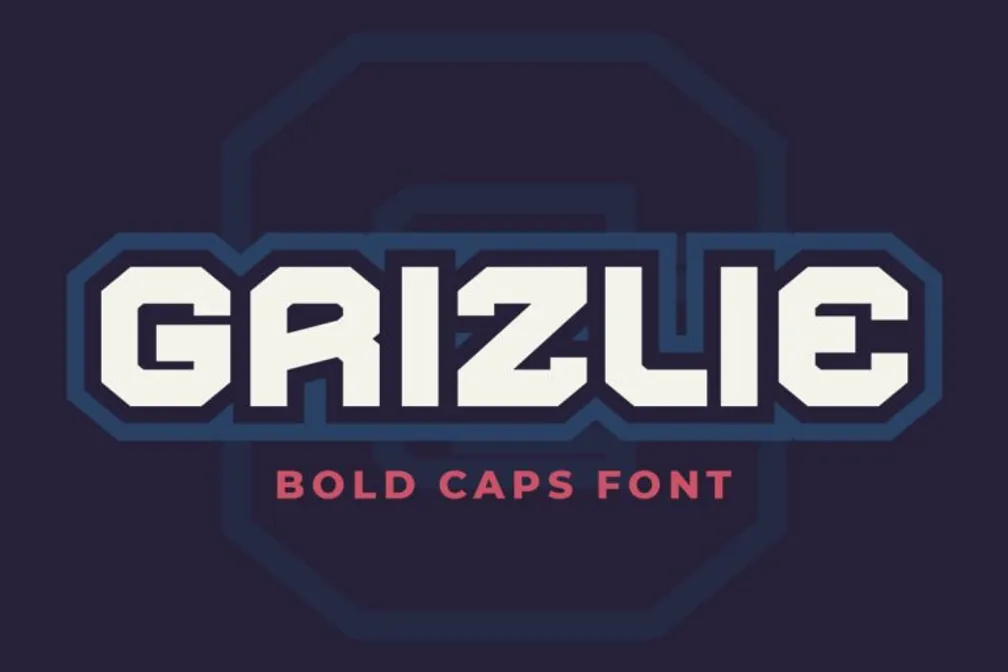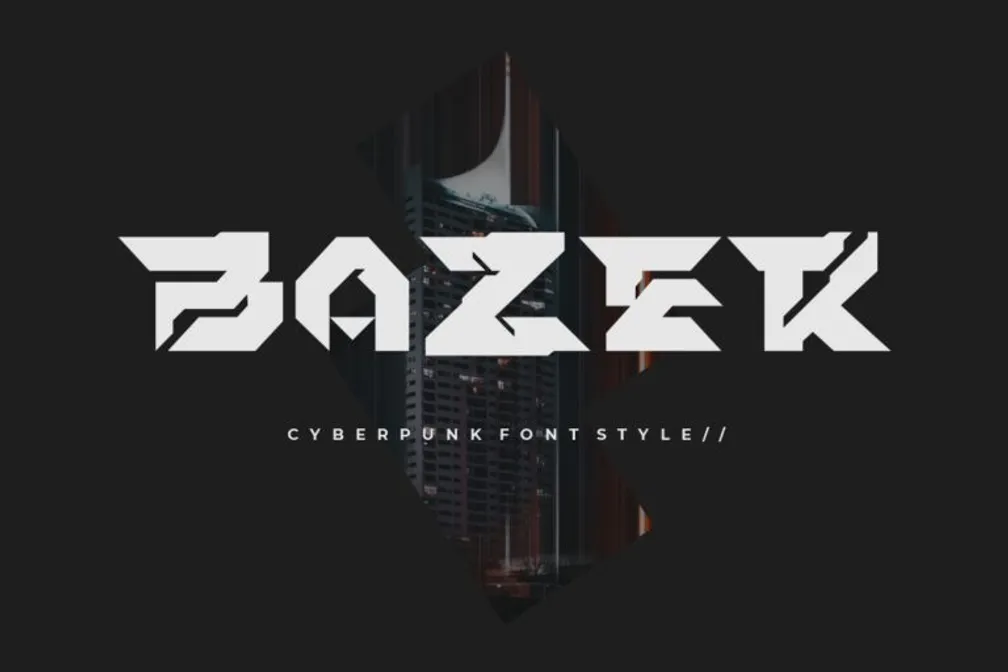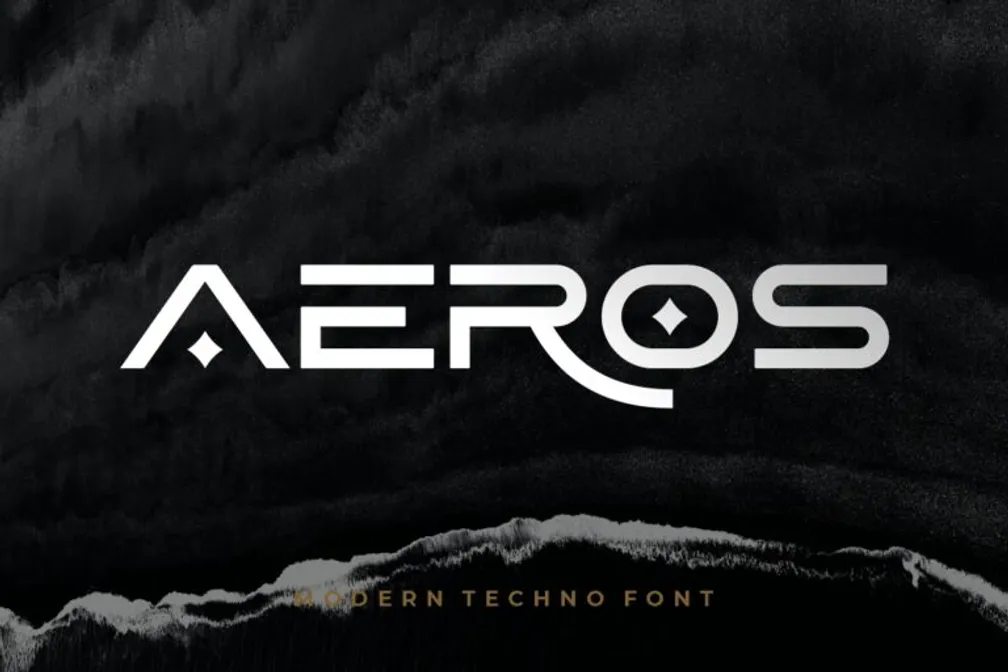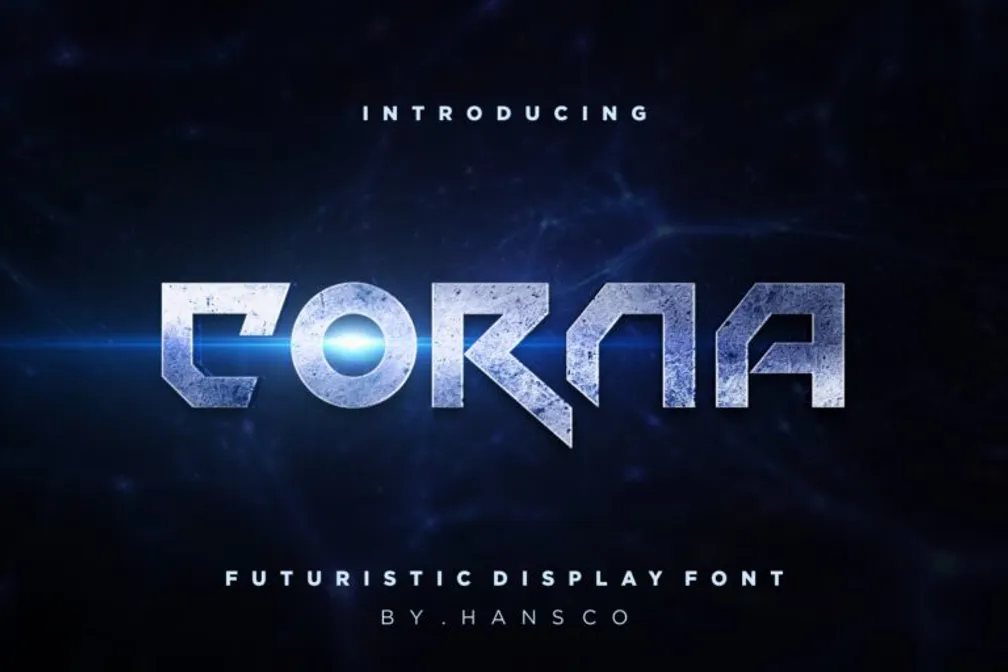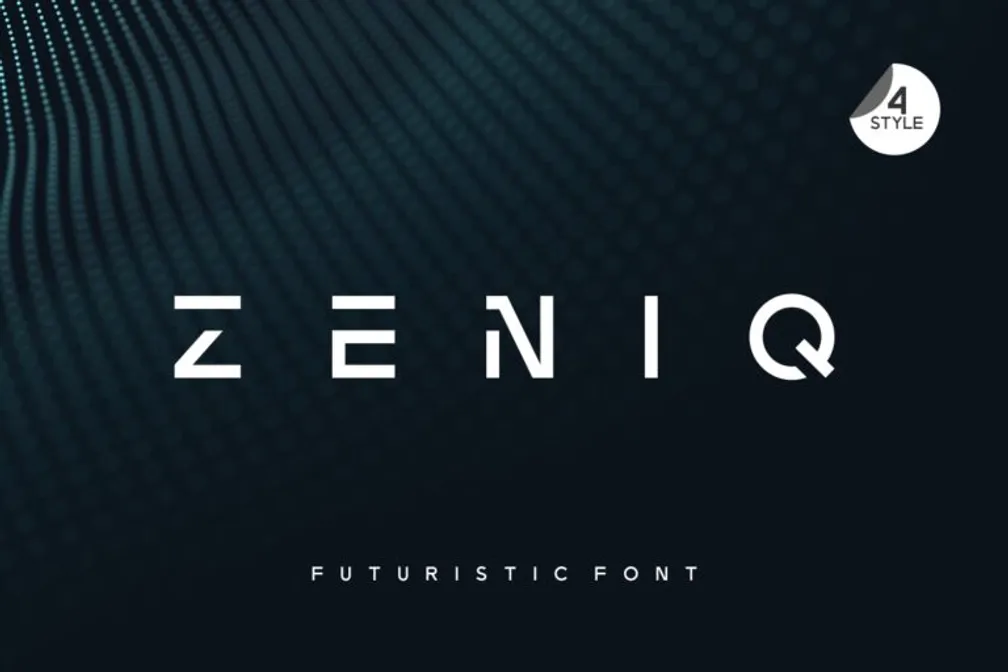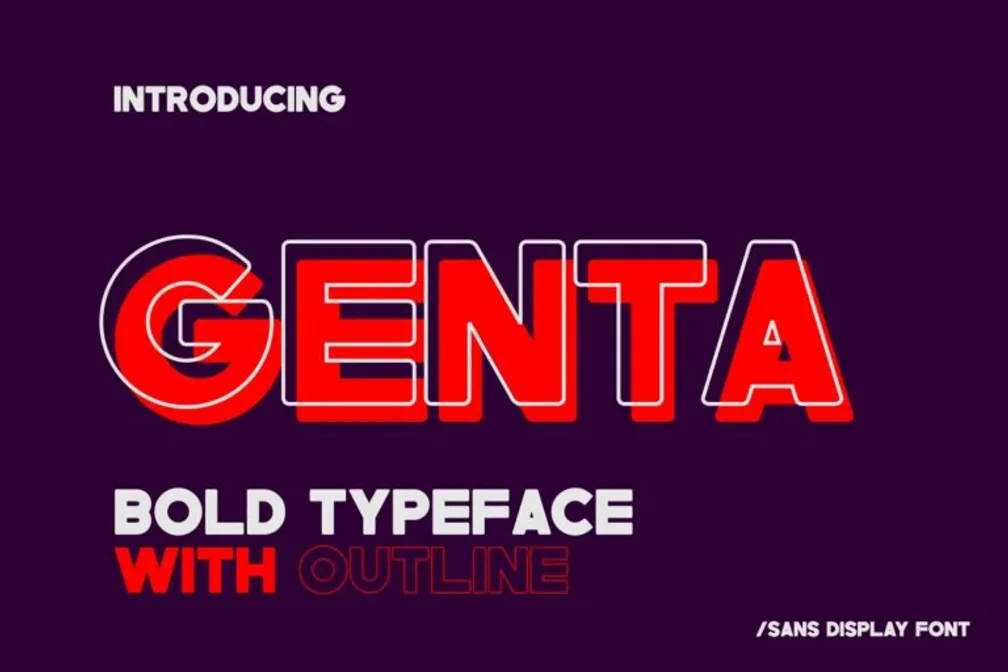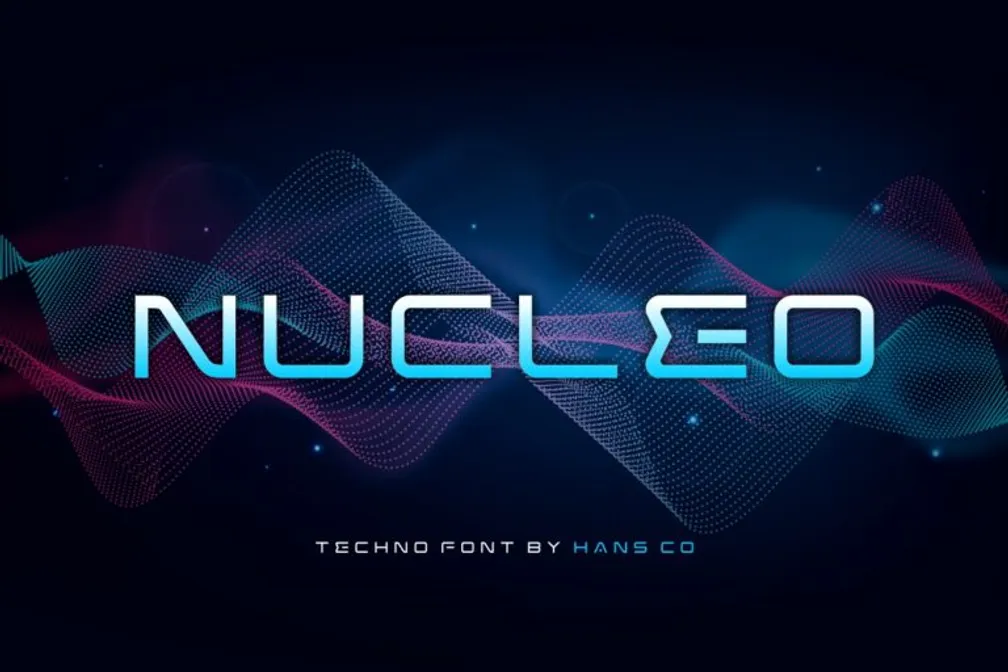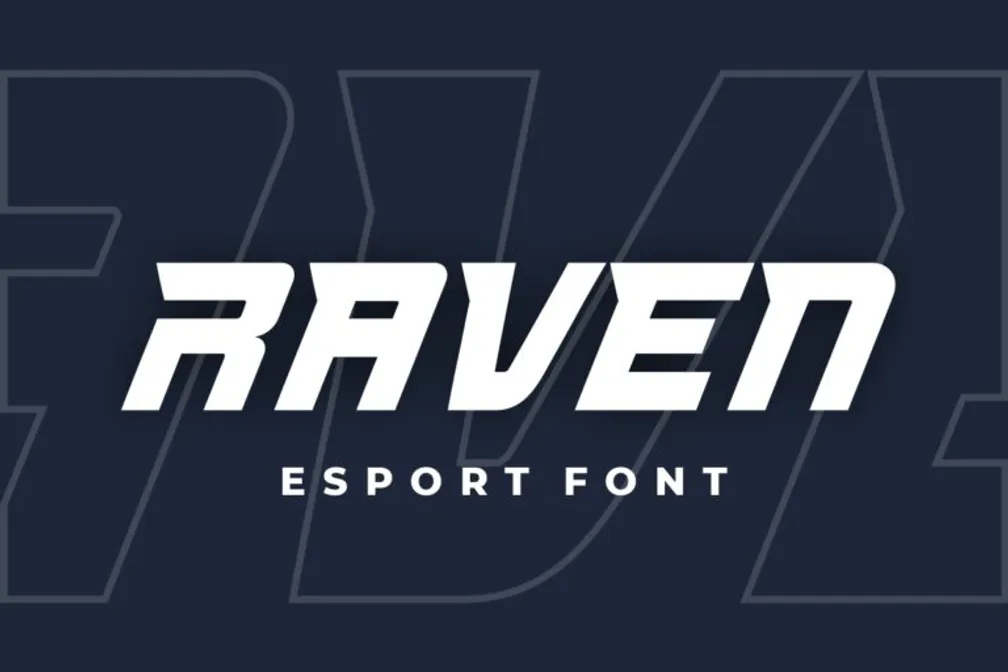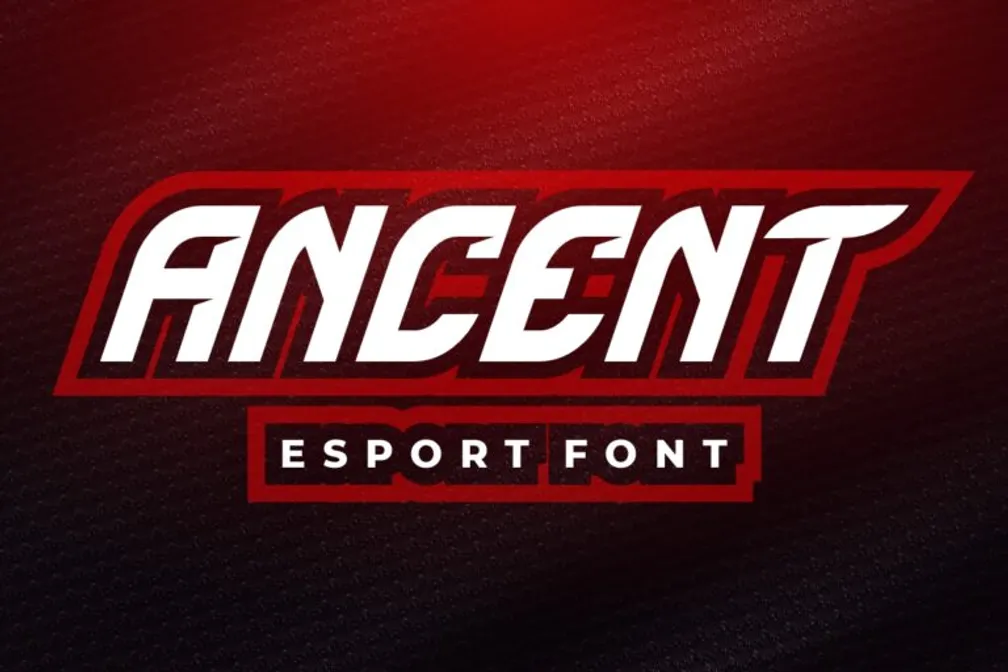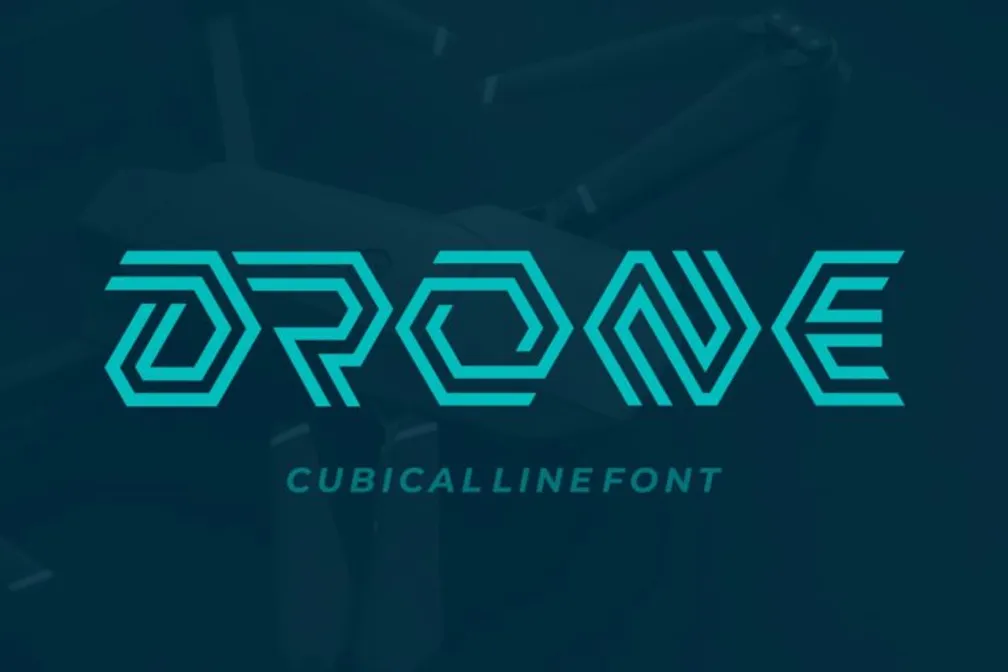
Top 15 Futuristic Fonts to Elevate Your Design in 2026
With so many typography options available today, futuristic fonts continue to stand out for brands that want to look energetic, innovative, and ahead of the curve. Defined by bold forms, sleek geometry, and high-tech appeal, these typefaces instantly command authority while reinforcing a visionary brand image.
• Futuristic fonts help brands create bold, high-energy visuals that communicate authority, innovation, and forward-thinking identity.
• The growing font market highlights increasing demand, with designers using futuristic styles across tech, esports, and sci-fi projects.
• Fonts like Grizlie, Raven, and Drone offer diverse styles, from sharp geometric forms to cyberpunk aesthetics, for various creative applications.
Techno Font Recommendations for Designers
1. Grizlie
Our first recommendation is Grizlie, which brings a masculine, all-caps geometric typeface with sharply squared letterforms to any creative project. It’s perfect for sports logos, e-sports branding, sci-fi posters, tech headlines, and badge design.
2. Raven
Up next is Raven, which delivers a sharp italic, all-caps style that gives designs a fast, aggressive, and modern futuristic character. This bold futuristic font is suitable for tech logos, e-sports visuals, and headlines that need serious visual authority.
3. Ancent
Want something good for e-sports and conventional sports branding? Then Ancent is for you. Compared to other options, this font uses a sharp italic style that adds a tough, fast, and confident futuristic personality to any design.
4. Drone
Among many futuristic fonts, Drone features geometric line-art letterforms with cubical characters and sharp angles that emphasize hi-tech precision. Because of that, this astro futuristic font suits many projects like headlines, e-sports logos, labels, and sci-fi-themed designs.
5. Sorta
Something that e-sports teams will definitely like is Sorta. It has a sharp italic style with leaf-shaped characters that blend futuristic design with an eco-friendly aesthetic. Not just that, the font supports both uppercase and lowercase, making it flexible for various purposes.
6. Flash
We have Flash next, a modern italic font with digital-style accents that give designs a sharp and striking hi-tech feel. Because it’s in all-caps, it’s what sci-fi posters and modern economy branding projects need.
7. Razor
Next in line of our futuristic fonts lineup is Razor. As we can see above, it brings a 3D cubic concept and unique dotted-line accents inside its letterforms. Like Flash, it’s in all-caps, and it’s perfect for army-style sports logos and projects that must look masculine.
8. Altos
You can choose Altos if you want to design something polished and professionally sophisticated. In short, Altos is a modern, sharp, square-based, futuristic typeface with balanced proportions and strong readability across every character.
9. Alone
When checking Alone, you can see how it draws inspiration from high-tech spaceship stories. This font features smooth, rounded characters with a clean, flowing angle perfect for tech branding and design projects.
10. Bazer
Want to emulate the feel of cyberpunk visuals? Then Bazer is ready to provide that impact. It uses sharp, bold, all-caps letterforms and industrial design accents that can give a definitive cyberpunk feel to any project.
11. Aeros
Traditional legibility is not always a bad thing, and Aeros can combine that with its futuristic feel. In practice, Aeros uses a clean aesthetic with both uppercase and lowercase support, plus alternate swash characters for more variety.
12. Corna
With a grid-based, futuristic display, Corna can help designers use bold, sharp letterforms for technical and sci-fi design applications. Furthermore, Corna’s uppercase and lowercase characters offer excellent versatility for logos and headline designs.
13. Zeniq
Mixing and matching styles can significantly improve a design, and that’s where Zeniq comes in. Available in four distinctive styles, designers can mix Zeniq’s styles freely within one layout.